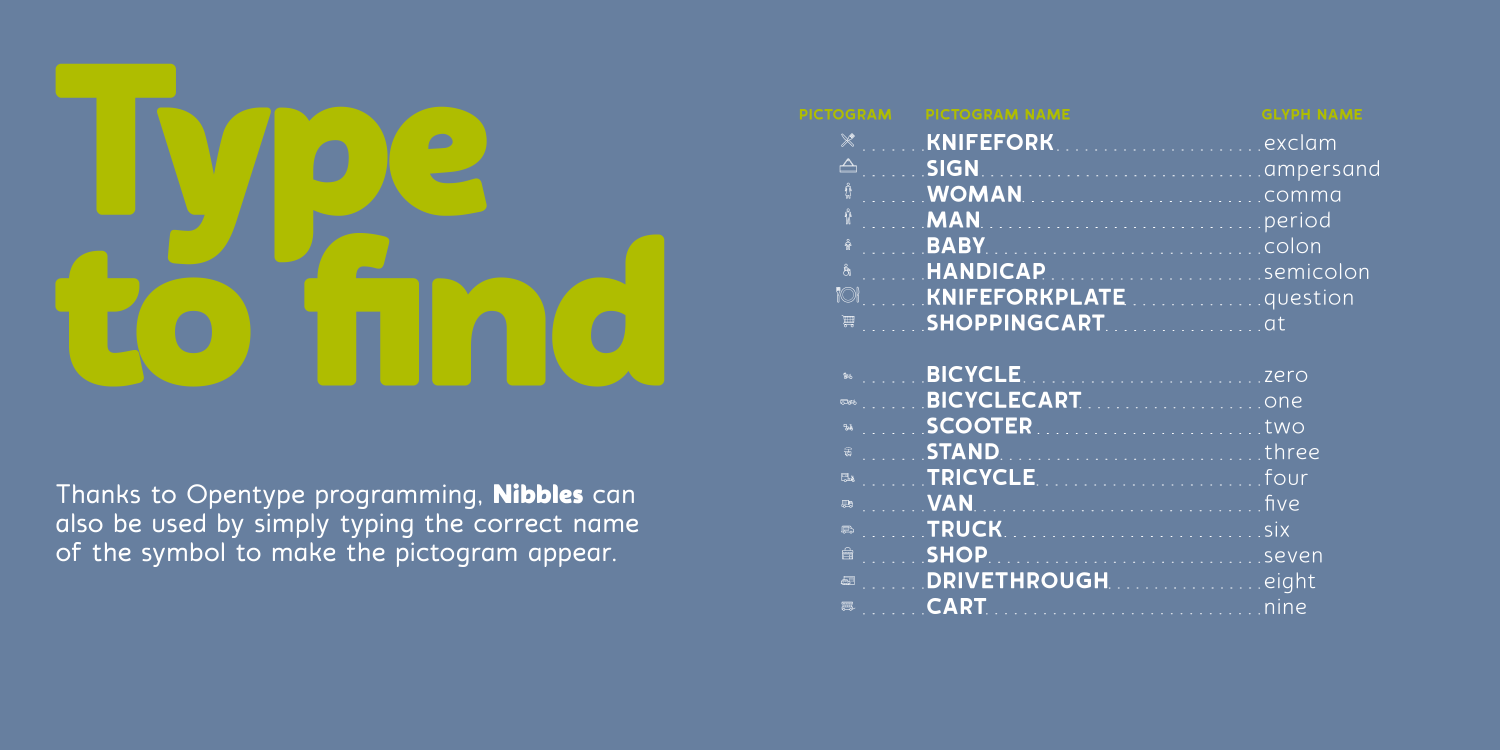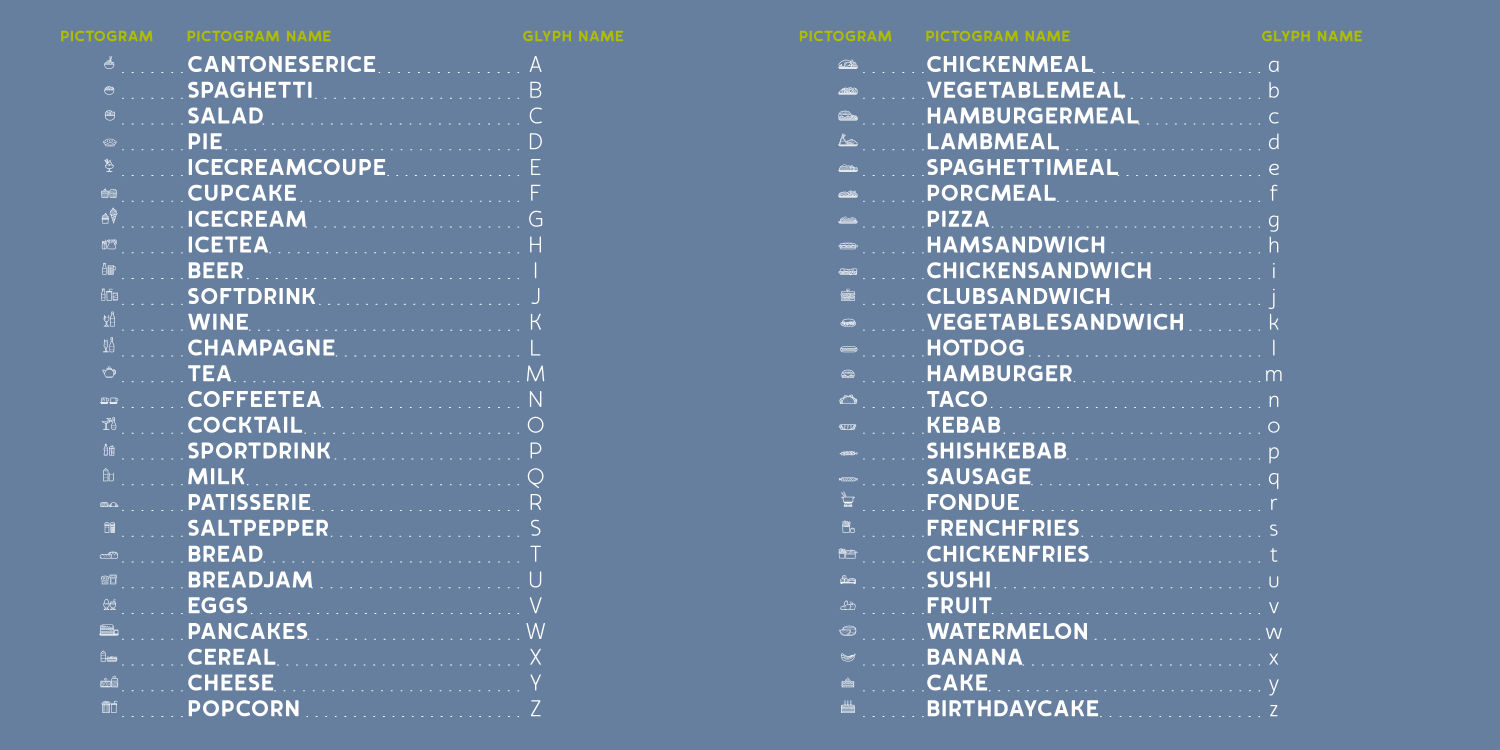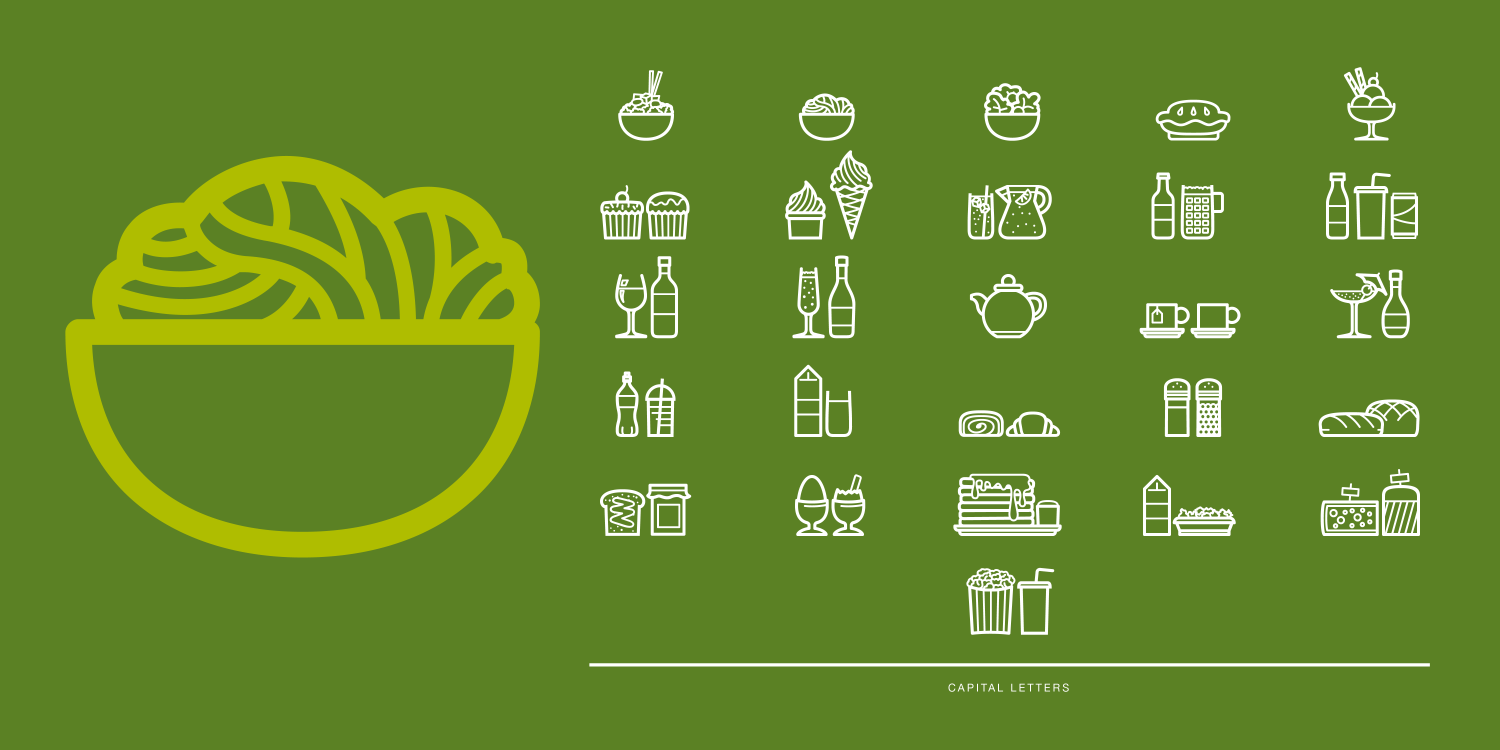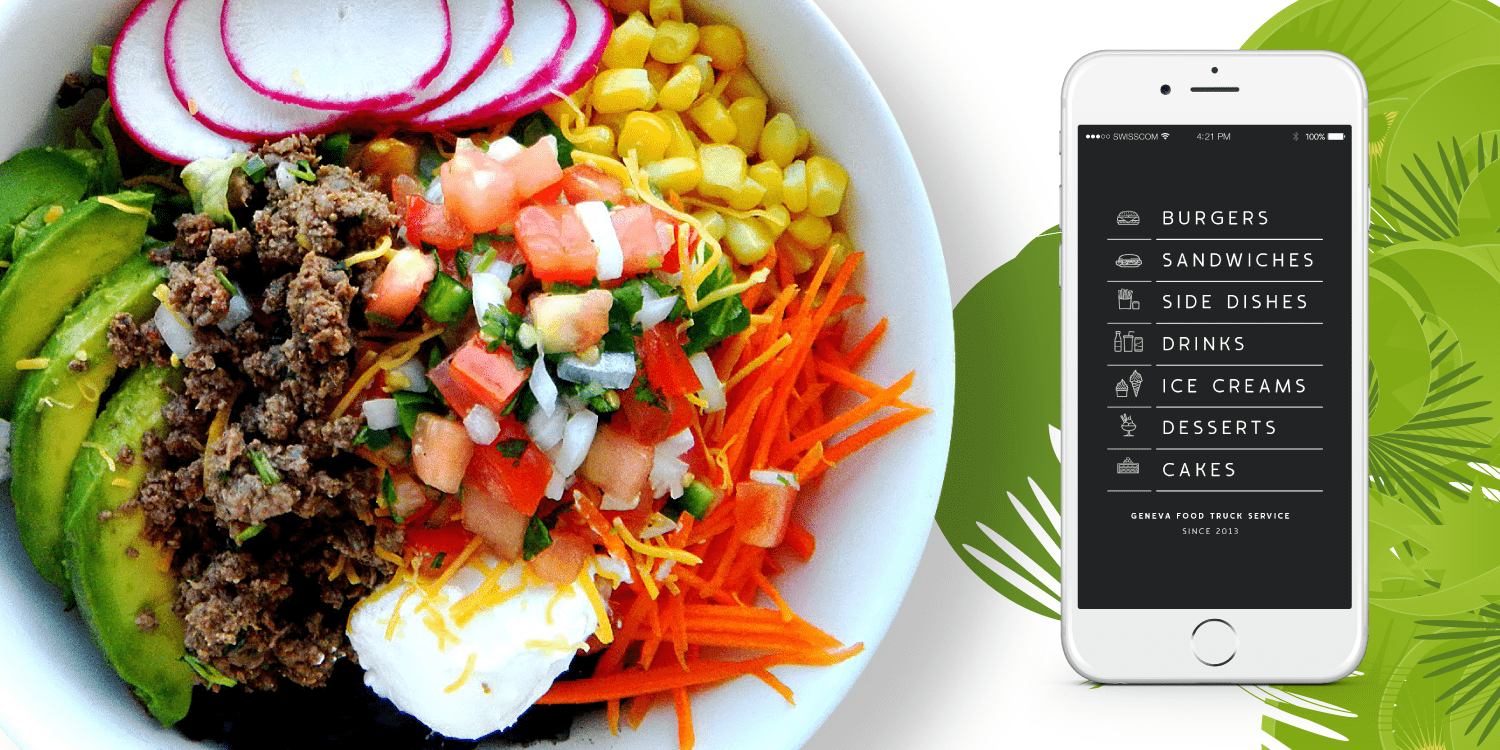
Nibbles is a linear dingbat typeface inspired by the theme of food and food trucks. With symbols ranging from burgers, pancakes or dessert to food trucks and toilet signs, this font aims to cover all your hungry design needs! To help with it’s application,…